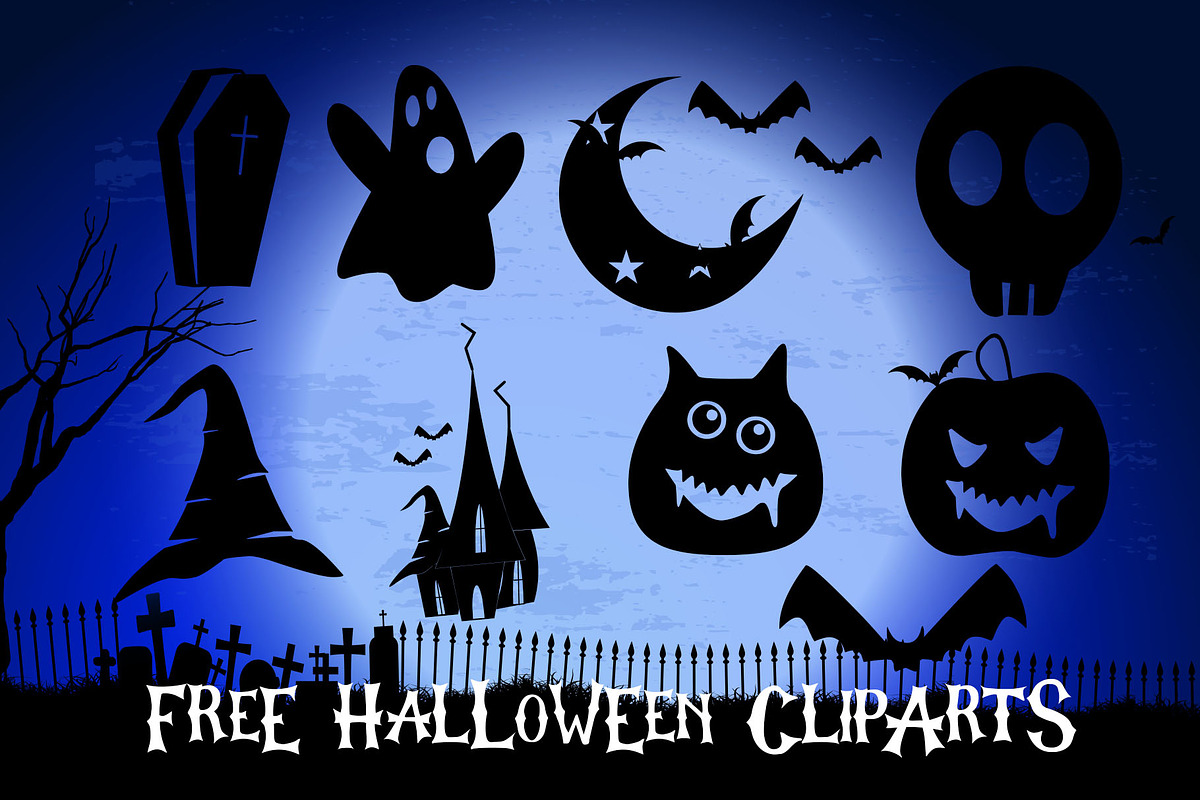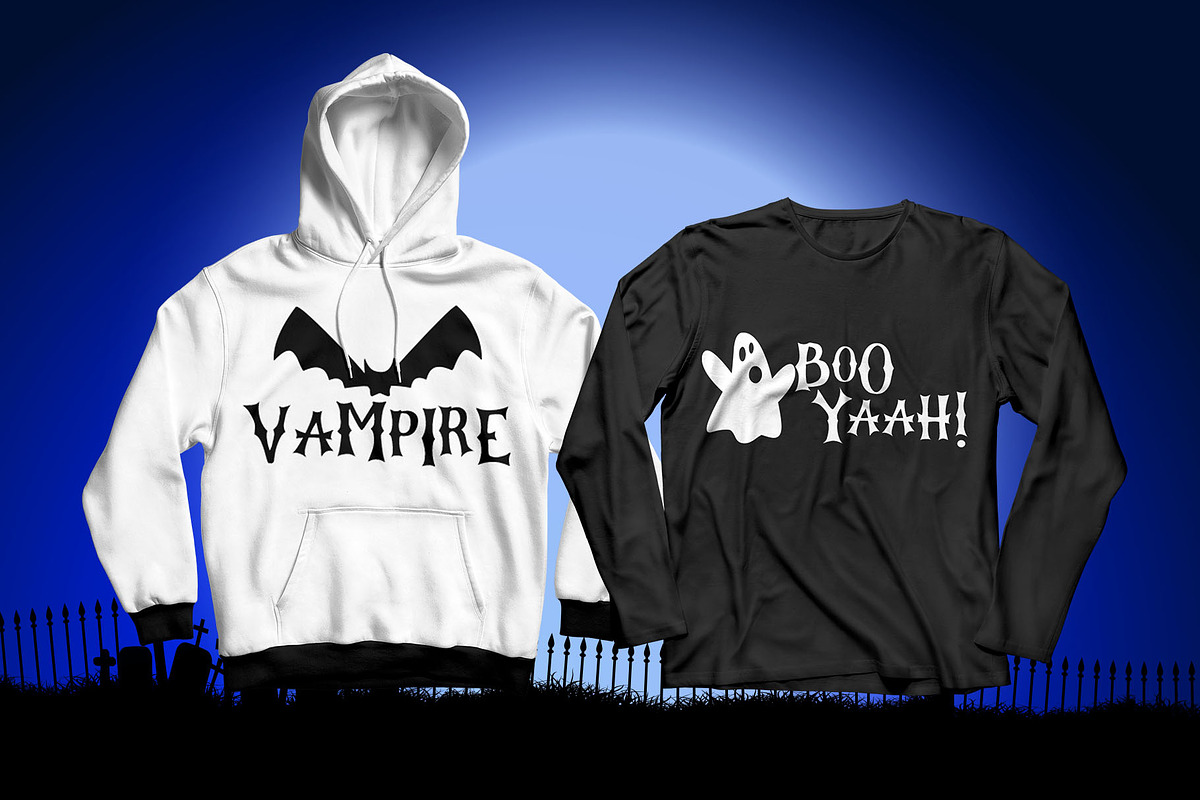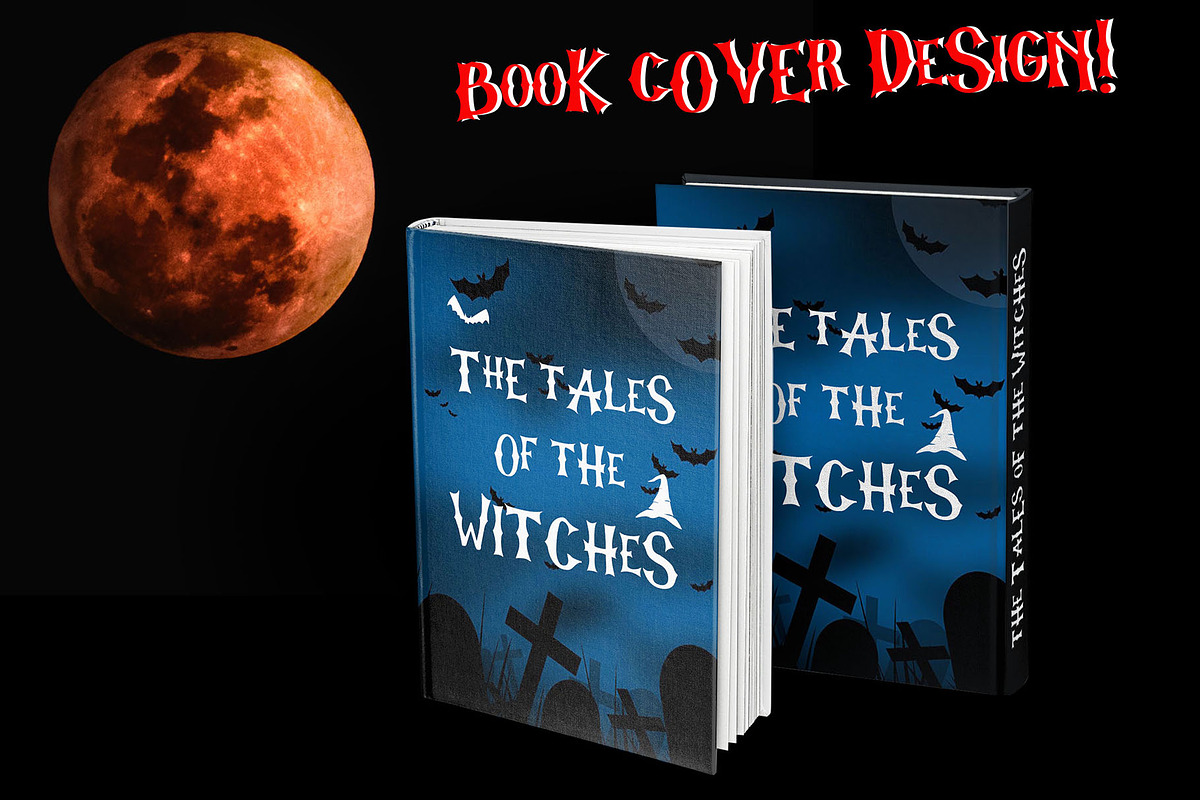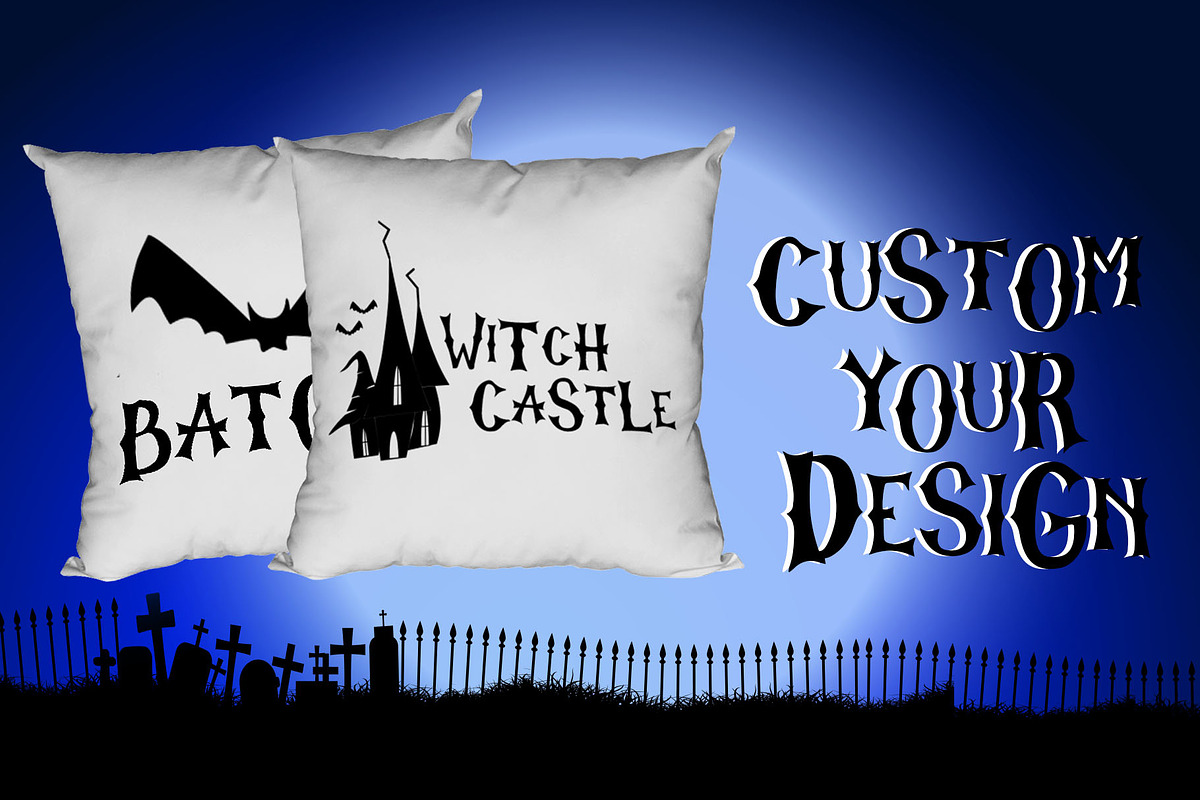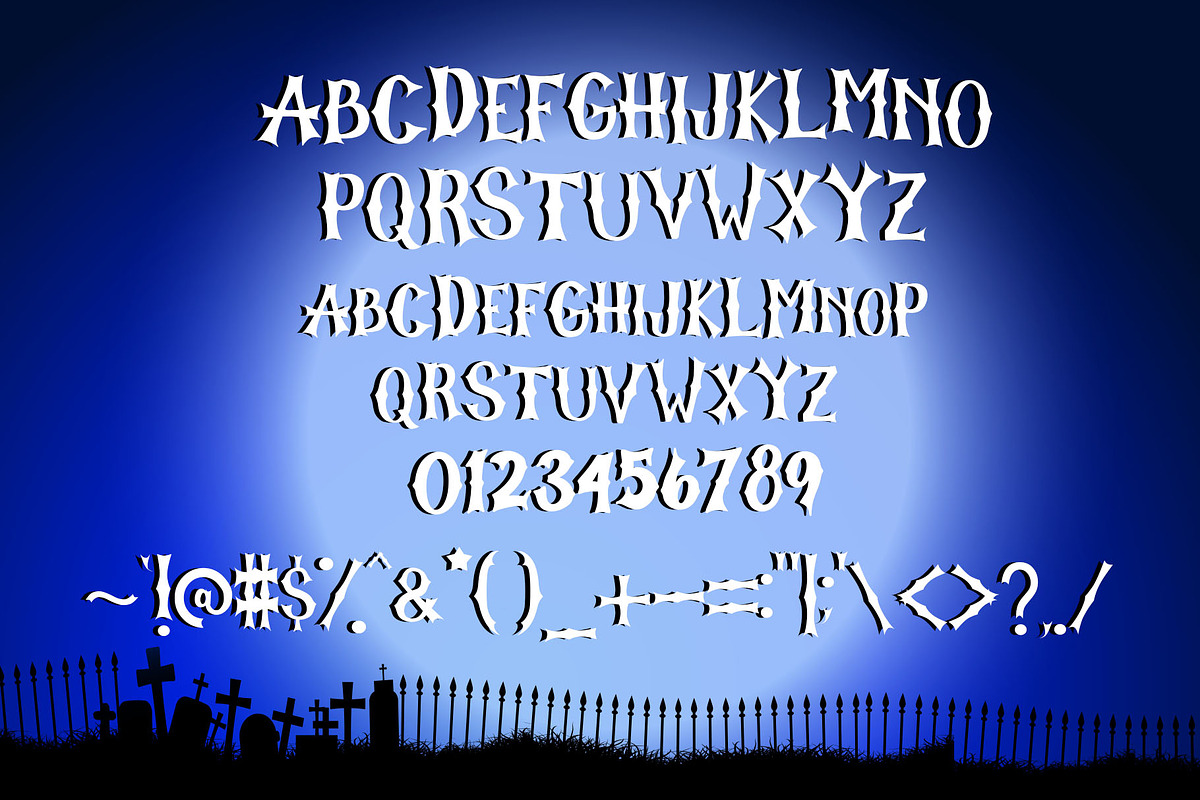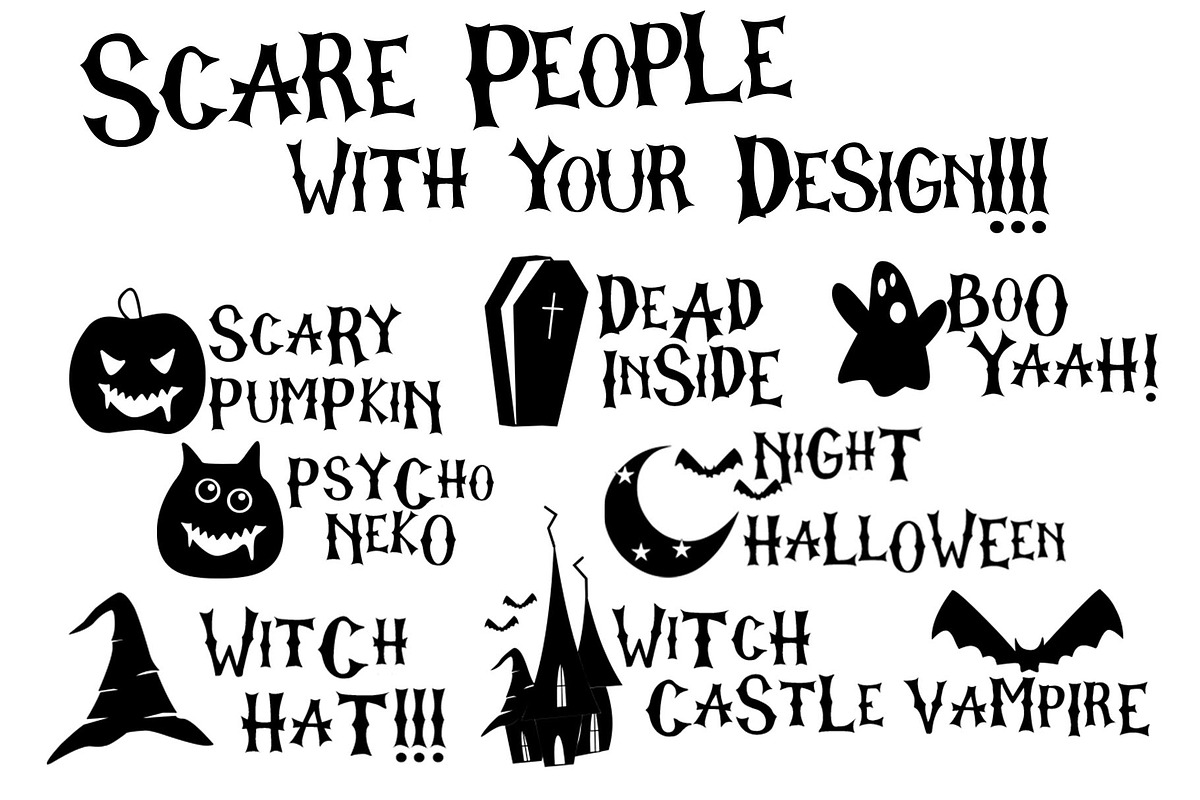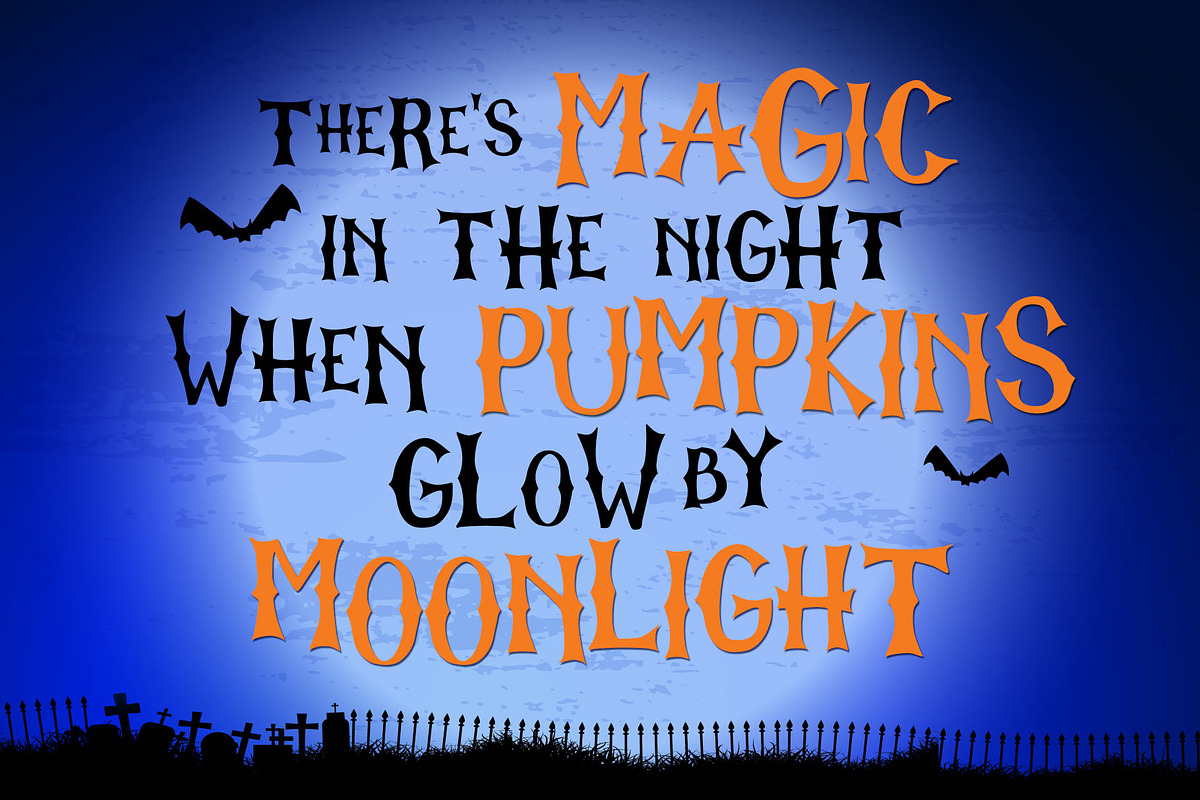
The Graveyard - Spooky Font
Hi ! Introduce our new font : The Graveyard is a fun handwritten-spooky font, that will perfectly fit for your Halloween projects and Crafter, such as t-shirt, posters, cards, etc. It has a unique and bouncy style, and we have added extra Halloween icons to make your design more spooky !
The Graveyard features :
Standard Characters from A-Z in two size version ( Uppercase & Lowercase ) Standard Symbols Halloween icons ( numeric 0-9 )